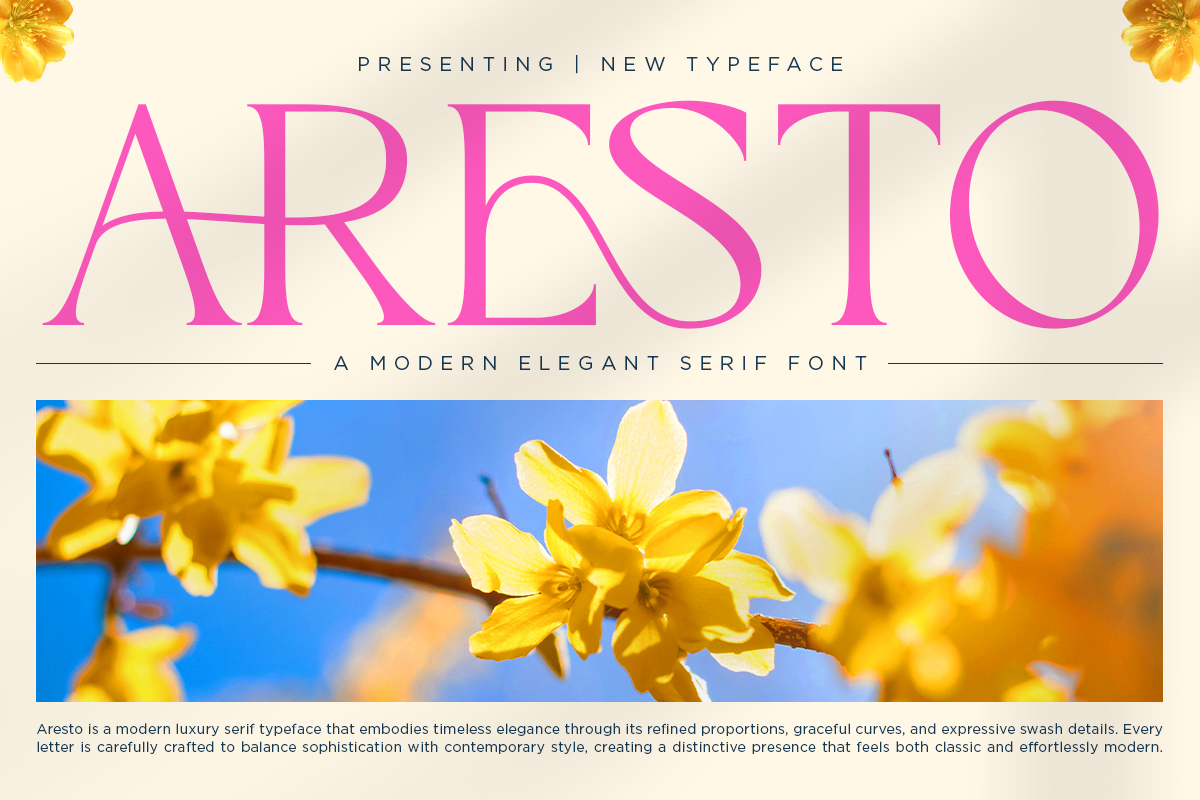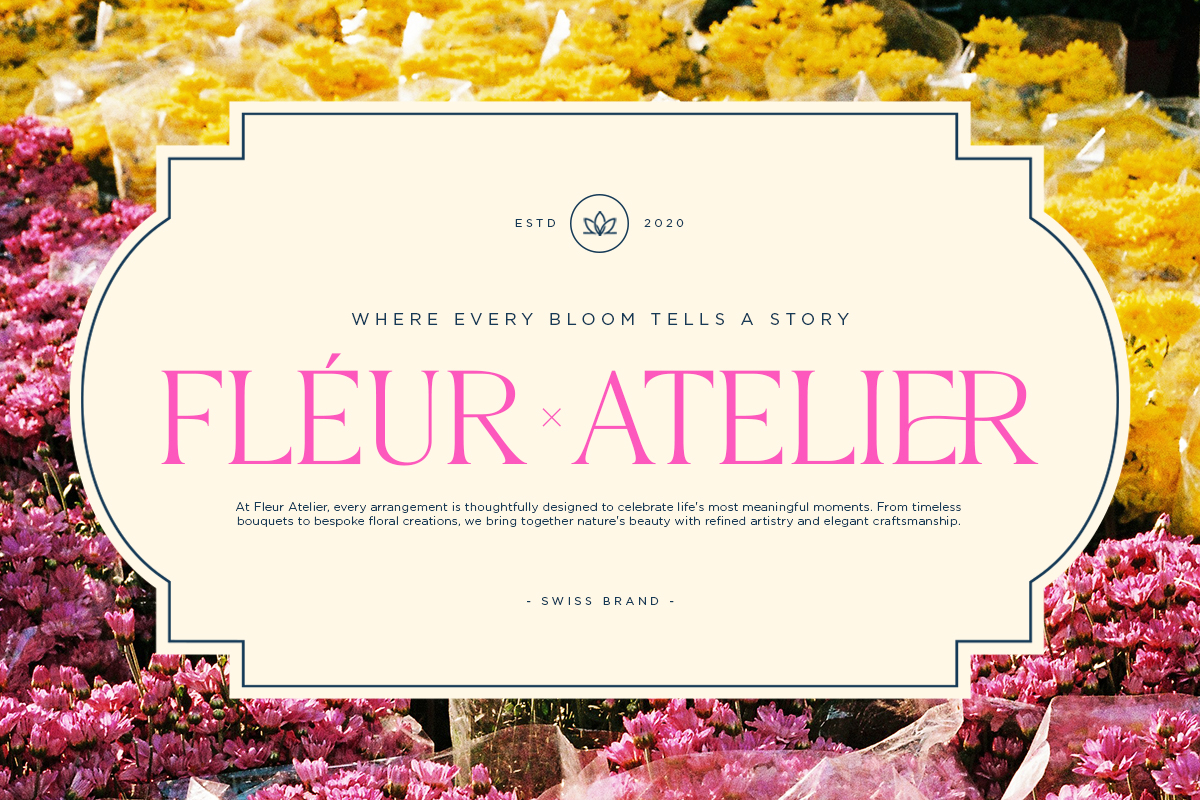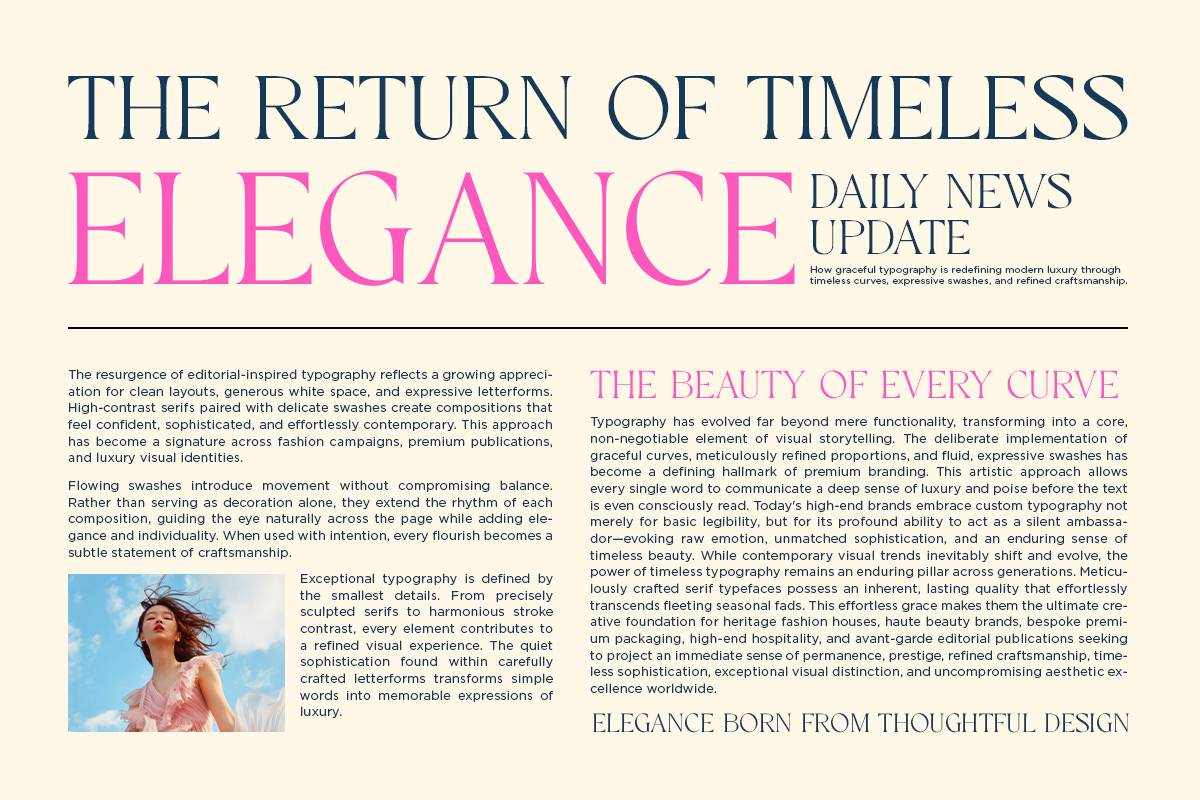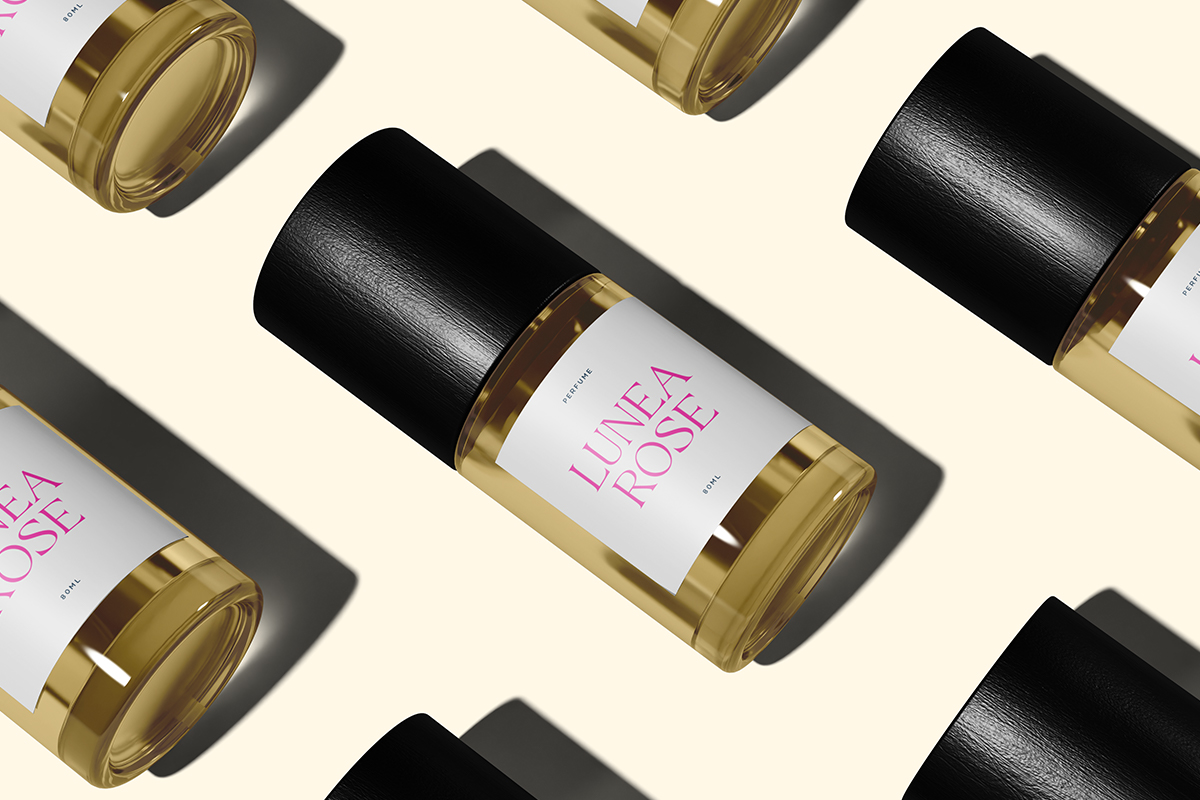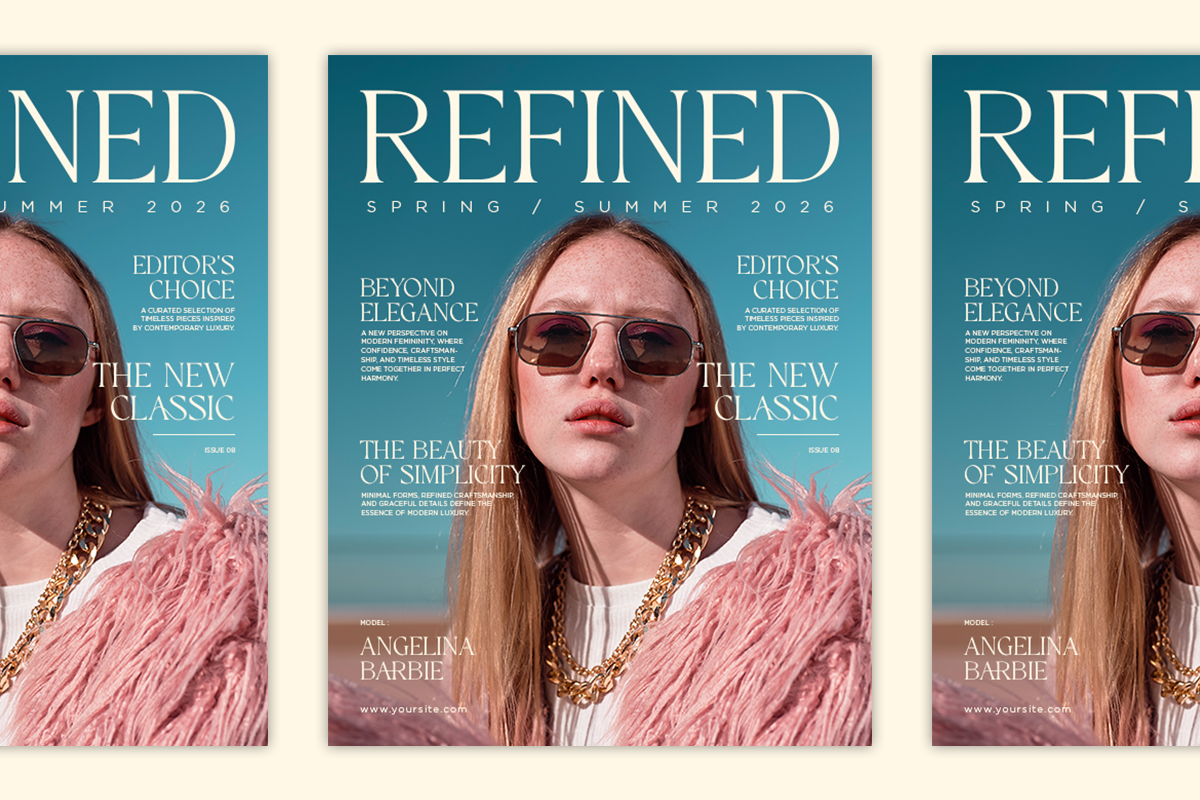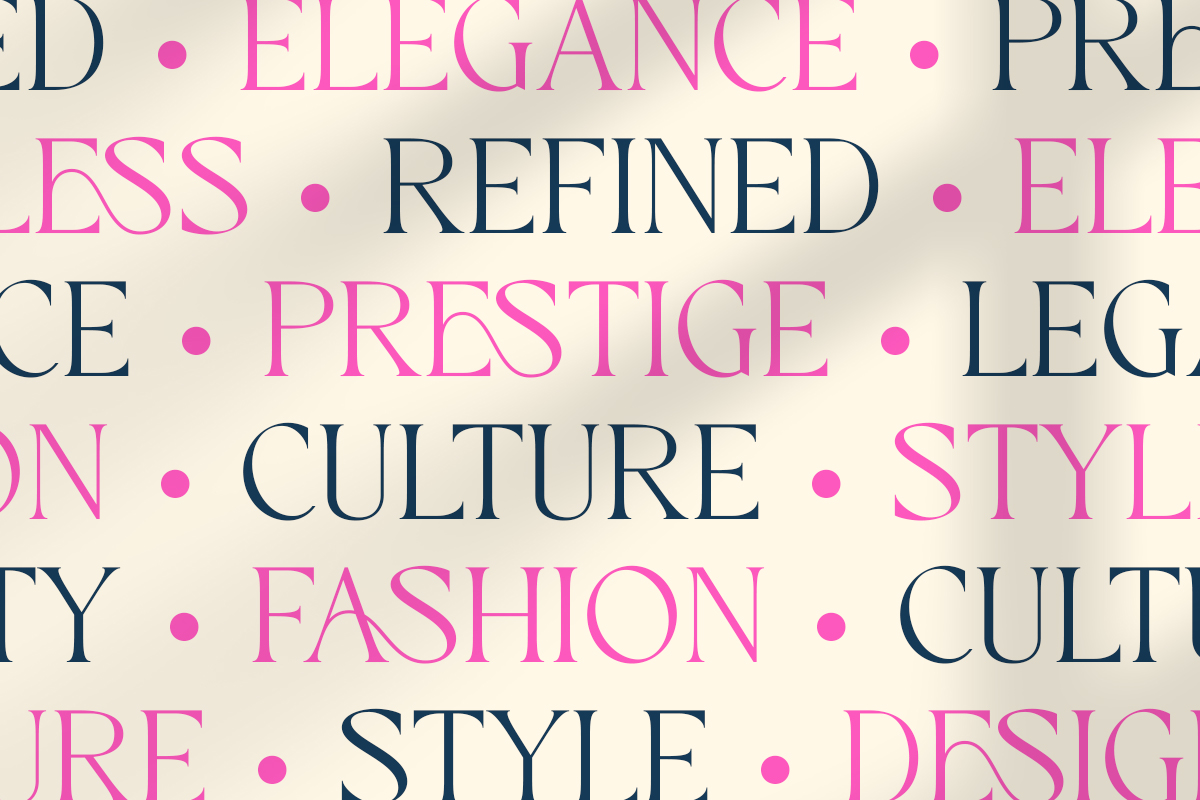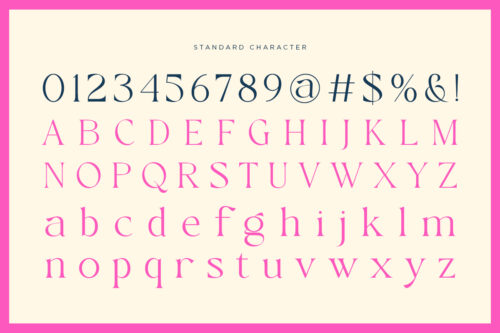
Aresto
Introducing **Aresto** the elegant, beautiful, and modern Serif. With its modern and minimalist look, Aresto brings a luxurious, classy, ​​and clean style to your projects such as websites, modern logos, brand identities, social media quotes, wedding stationery, magazines, and more!
Aresto features unique and classy capital letters A to Z and also comes with unique ligatures making Aresto a beautiful font that can be customized for various projects and jobs you want.
Aresto is perfect for: logos, brands, wedding invitations, business cards, greeting cards, posters, magazines, social media, agenda prints, and websites.
– ligatures
Aresto – Modern Elegant Serif Font